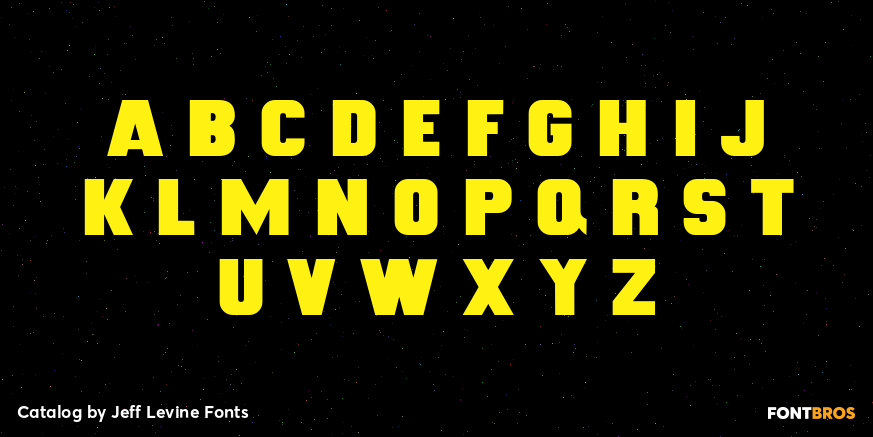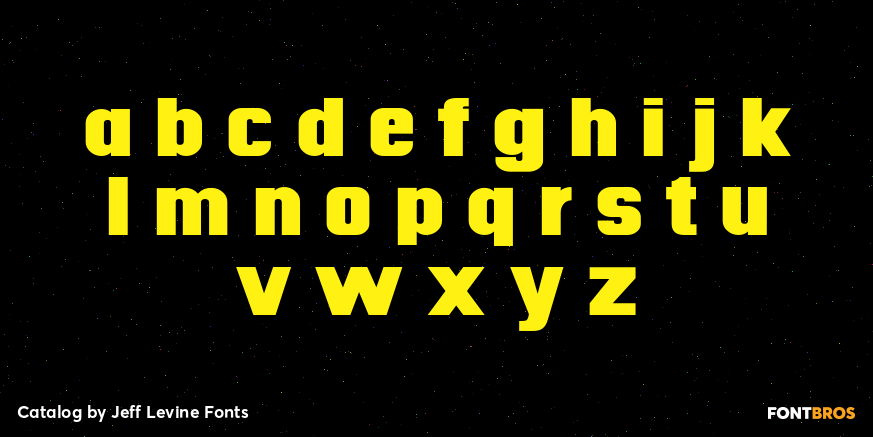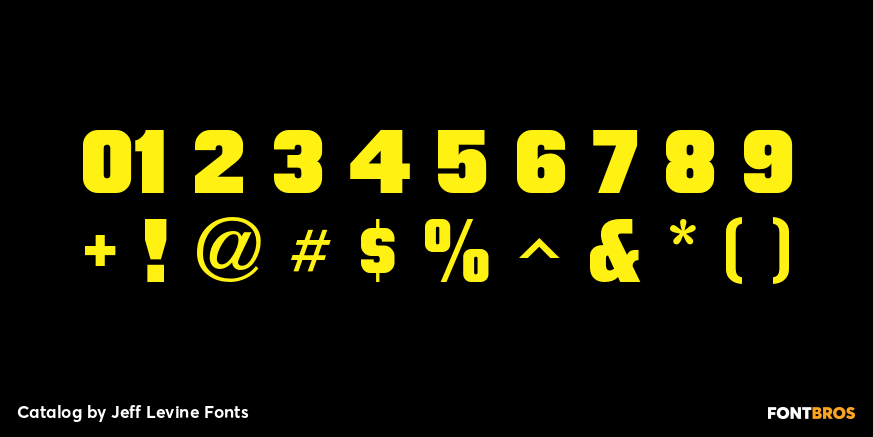
Catalog
Catalog JNL is based on a set of vintage wood type. Its uniform, block-style appearance is perfect for projects where bold, readable titling will apply. Available in regular and oblique styles.